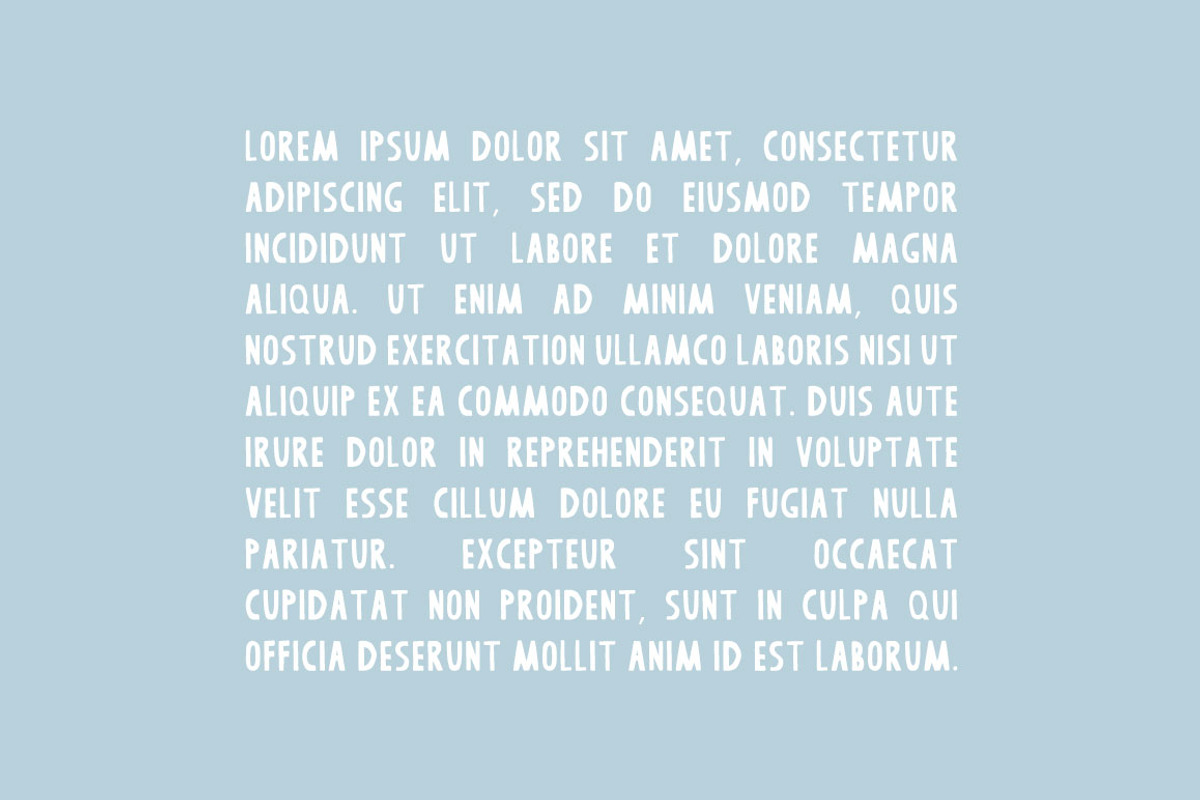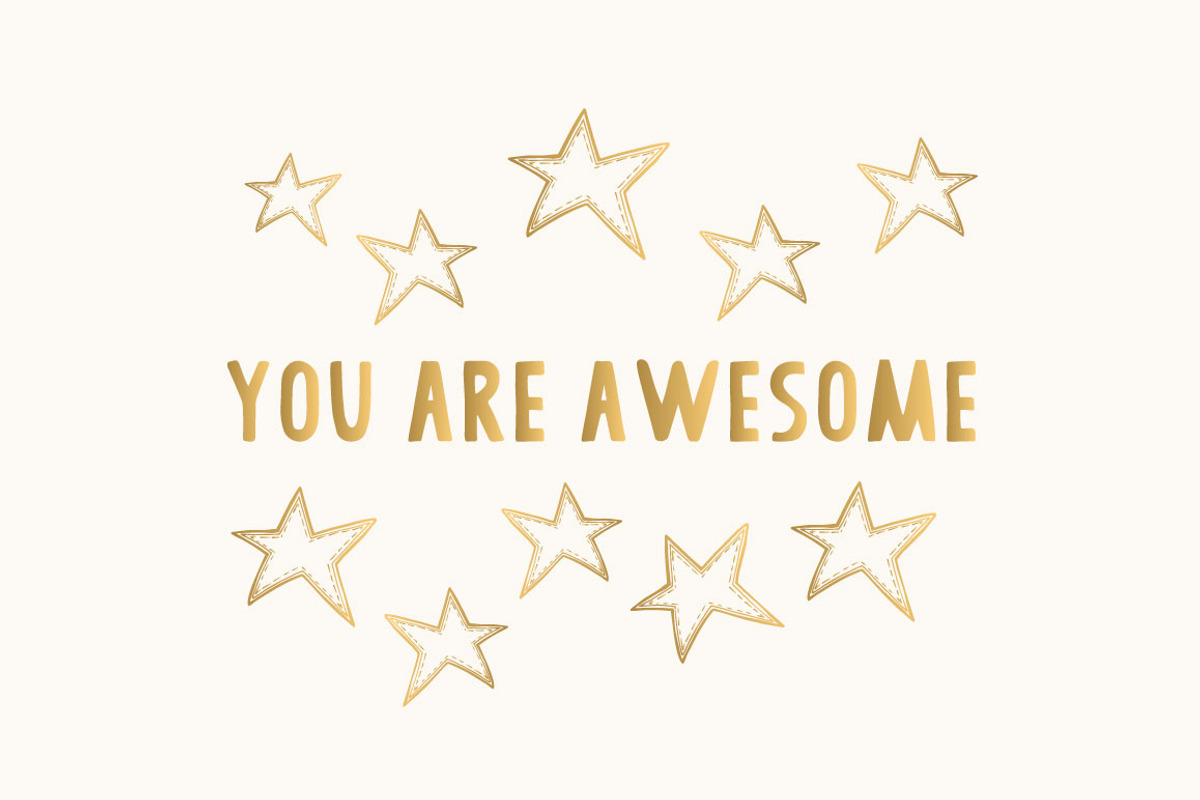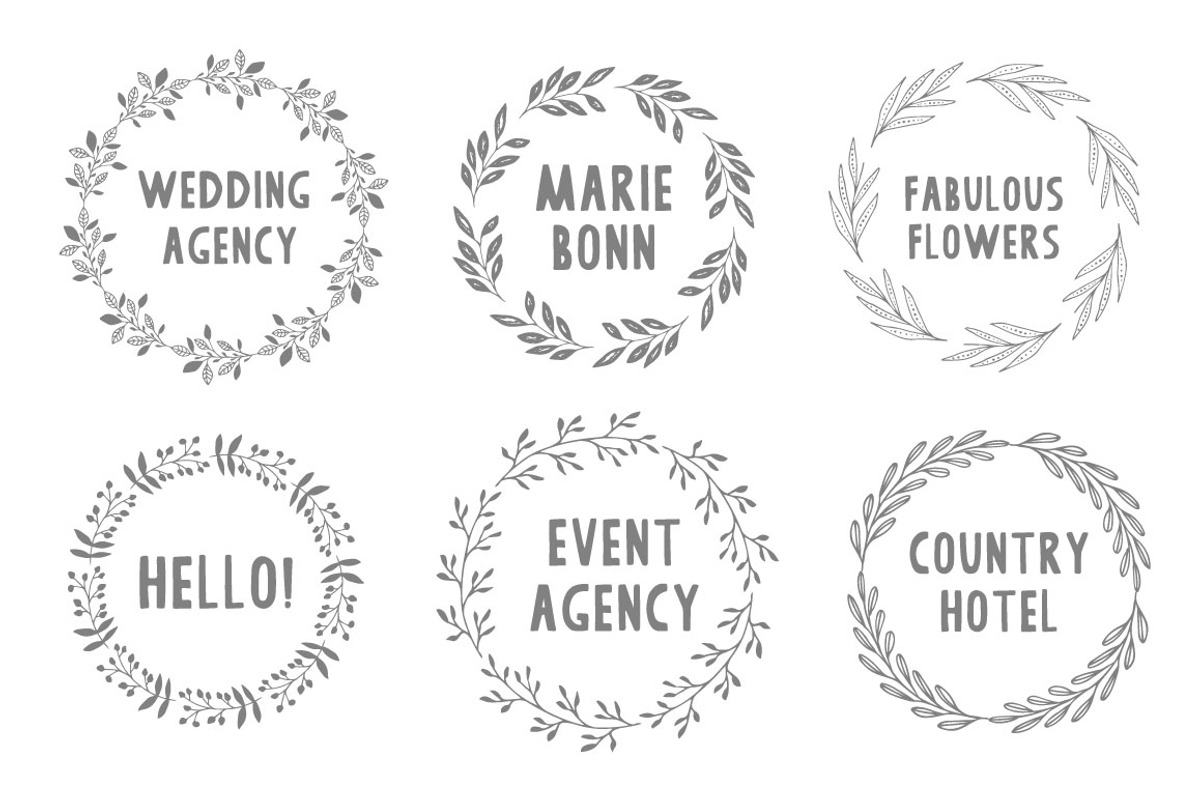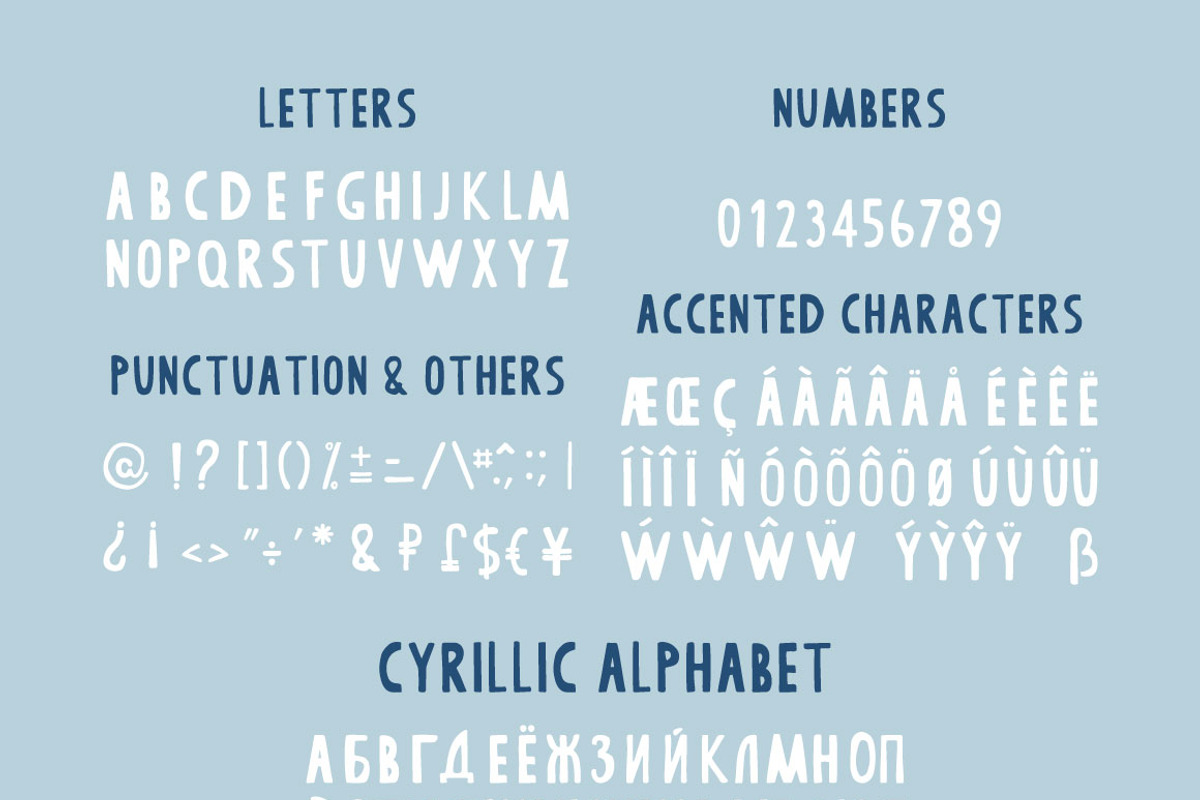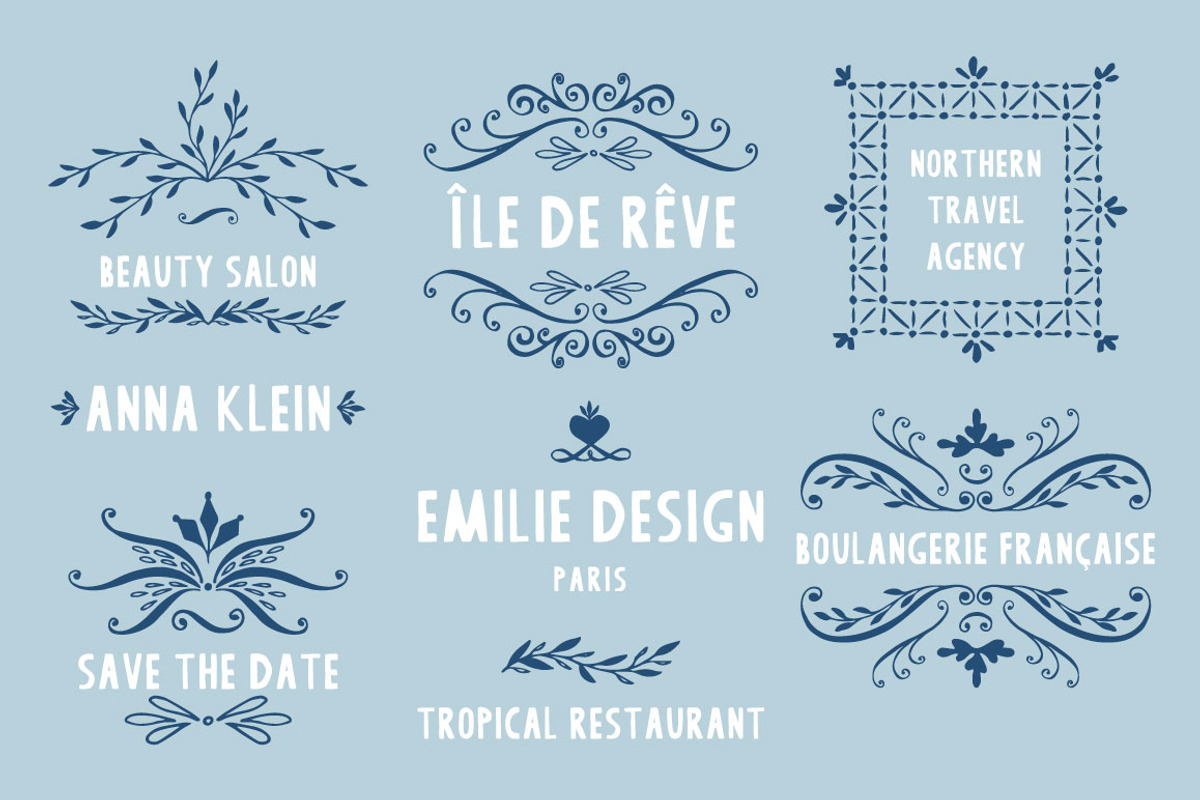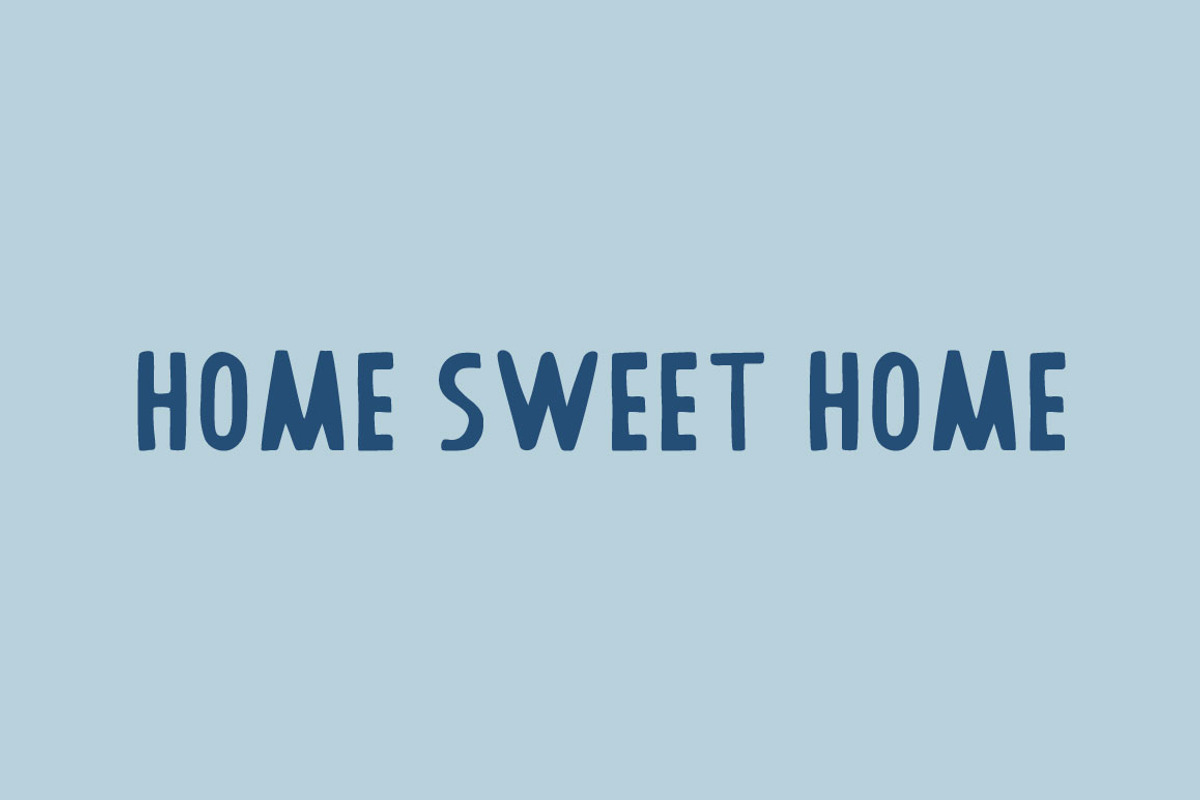
Ladoga Font
- Character set A-Z
- Cyrillic Alphabet
- Punctuation
- Accented characters
Why Ladoga Font is worth a look
Ladoga Font by Anatartan Design fits naturally into Branding, posters, packaging, typography.